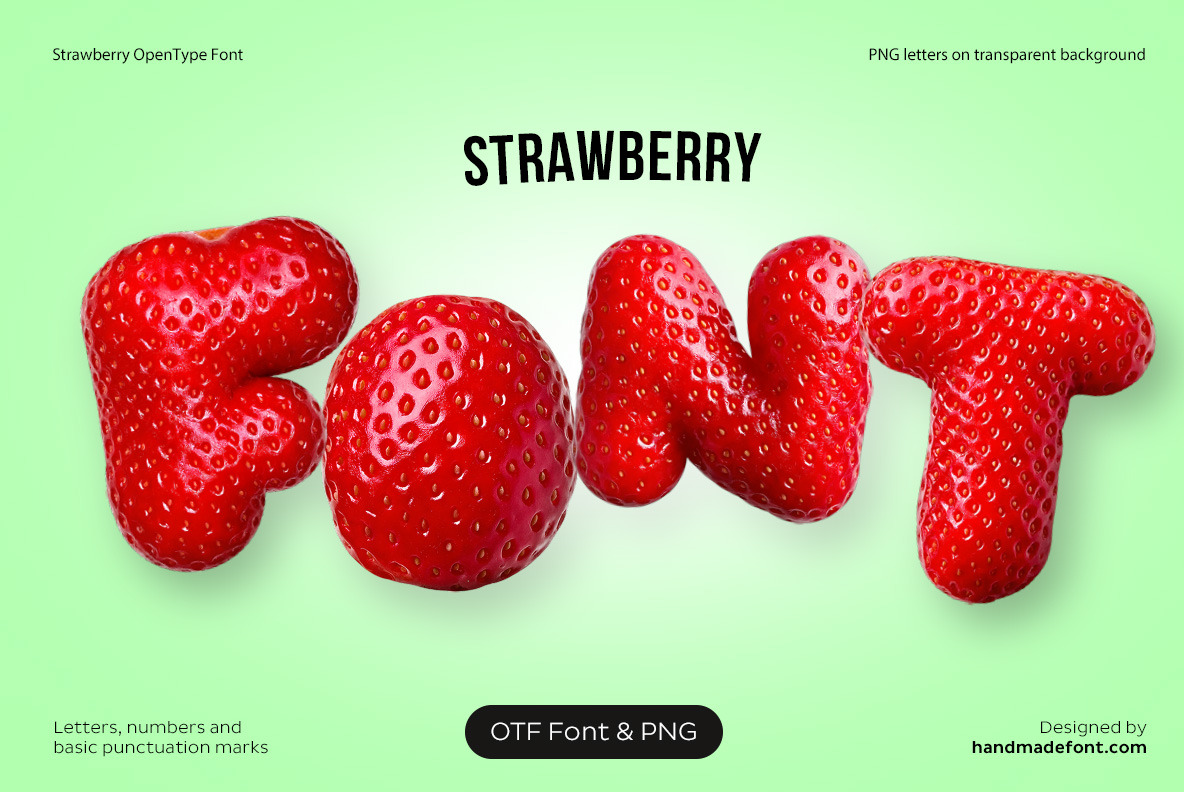
Strawberry Font
Strawberry Font - a sweet and juicy typeface inspired by the vibrant red of fresh strawberries. Each letter bursts with the texture and charm of ripe berries, blending playfulness with bold color. Ideal for summer themes, food branding, or any project craving a touch of fruity fun and eye-catching freshness!
A high definition OpenType Font. Contains uppercase characters, numerals and basic punctuation. (Draw height roughly 800 pixels). All letters and glyphs that comprises this font you can see on the preview.
- Letters : A B C D E F G H I J K L M N O P Q R S T U V W X Y Z
- Numbers : 0 1 2 3 4 5 6 7 8 9
- Others : ! ? - . ' $ € % &